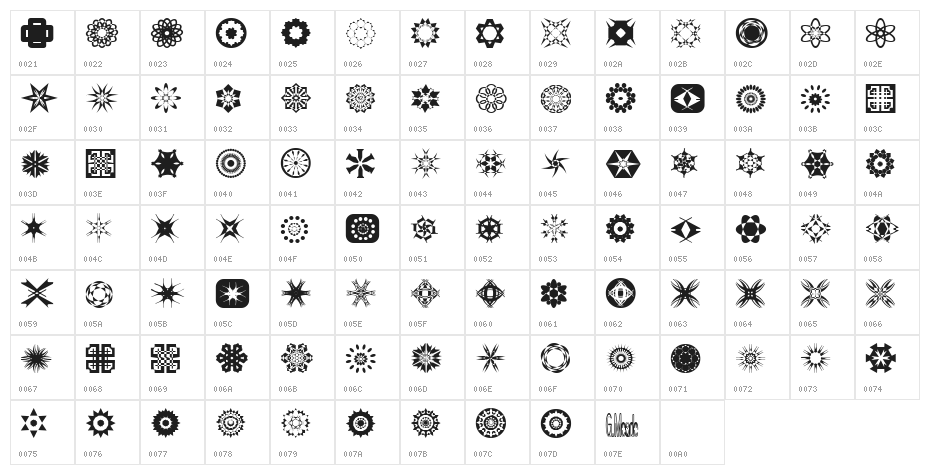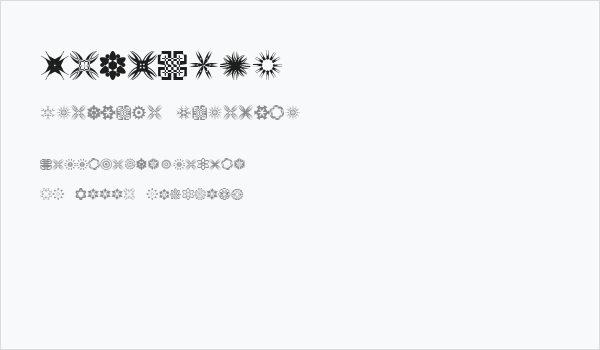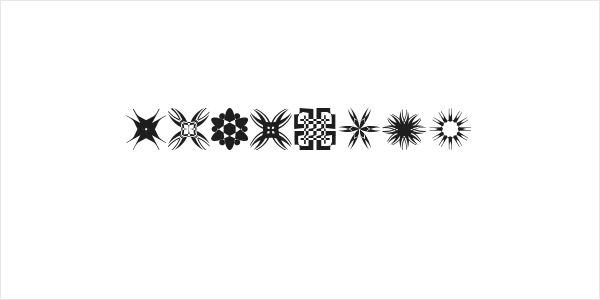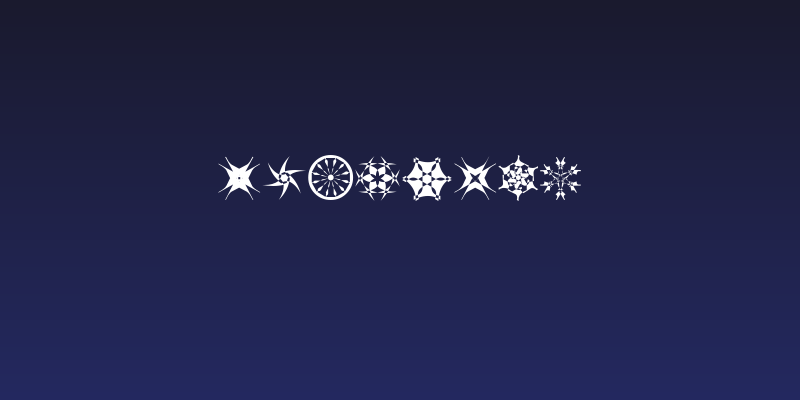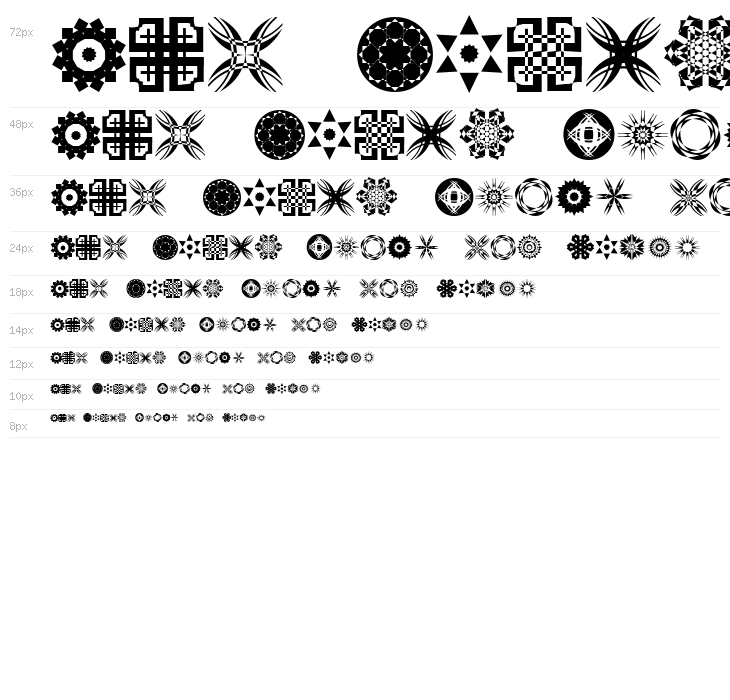
Meadings Font
Meadings Description
A collection of highly decorative, geometric, and symmetrical glyphs resembling mandalas, stars, and abstract floral motifs. Each character is unique, with bold black-and-white contrast and intricate detailing, making them visually striking and ornamental.
| Overall Style | Decorative, Ornamental, Abstract |
| Use Case | Decorative elements, Borders, Accents, Logos |
| Proposed Projects | Borders, dividers, decorative accents in invitations, posters, scrapbooking, digital art, and branding elements. |